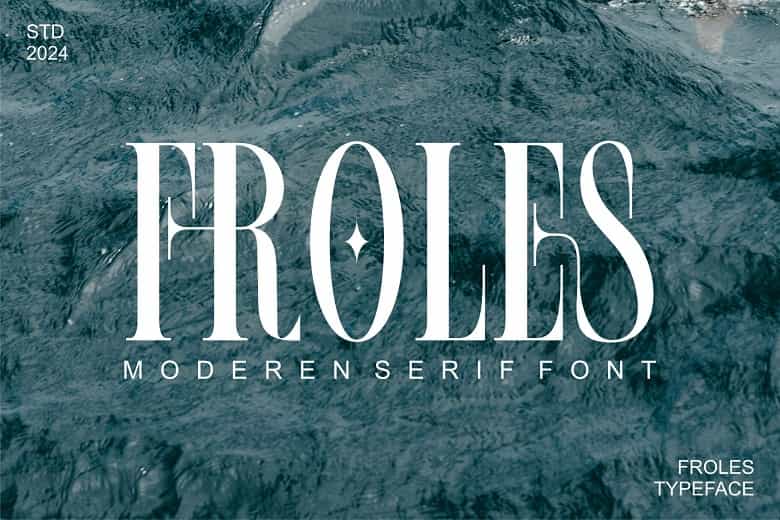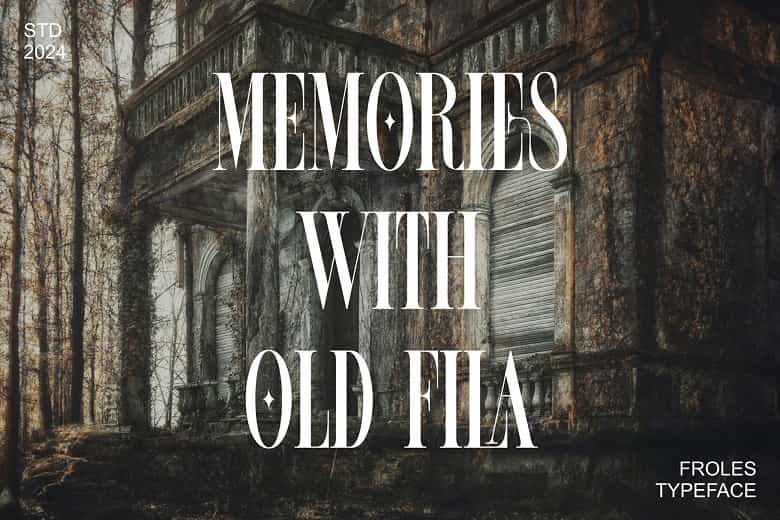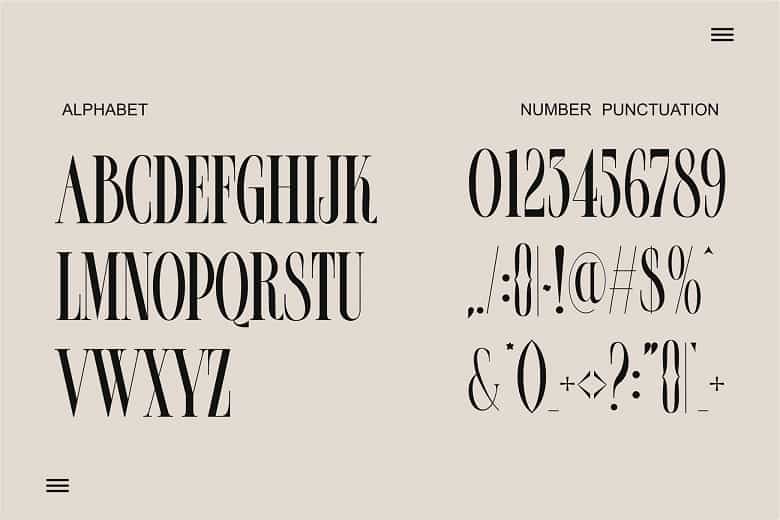
Froles is a modern and elegant serif font that has been designed based on the concept of the minimalist logo to use in the creation of templates, brochures, videos, advertising branding, logos, invitations, layout designing, elegant crafting, beauty designing and other related services.